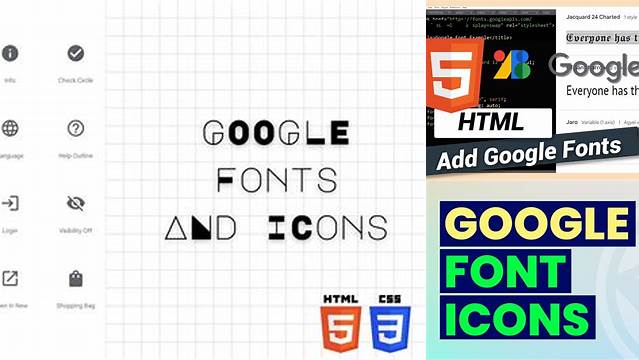
Use Google Fonts Icons: A Simple HTML Guide
Hey guys! Ever wanted to spice up your website with some cool icons but didn't know where to start? Well, you're in luck! Google Fonts Icons are here to save the day. They're super easy to use, totally free, and can make your website look amazing. In this guide, we're going to dive deep into how you can use Google Fonts Icons in your HTML projects. Let's get started!
What are Google Fonts Icons?
First things first, let's talk about what Google Fonts Icons actually are. Think of them as a huge library of scalable vector icons that you can easily add to your website. Unlike images, these icons won't lose quality when you resize them, making them perfect for responsive designs. Plus, because they're part of the Google Fonts family, they load quickly and seamlessly. You guys will find that Google Fonts Icons provide a vast collection of symbols and glyphs that can be used in various web development projects. These icons are designed to be scalable, meaning they maintain their quality regardless of the size at which they are displayed. This is a significant advantage over traditional image-based icons, which can become pixelated or blurry when scaled up. The scalable nature of Google Fonts Icons ensures that your website looks crisp and professional on all devices, from smartphones to high-resolution desktop monitors. Moreover, because these icons are delivered as a font, they are lightweight and load quickly, contributing to a faster website loading time. This is crucial for user experience and SEO, as websites with faster loading times tend to rank higher in search engine results. Google Fonts Icons also support a range of styling options through CSS, allowing developers to easily customize their appearance. You can change the color, size, and shadow of the icons, and even apply hover effects to create interactive elements. This level of customization ensures that the icons can be seamlessly integrated into the overall design of your website, enhancing its visual appeal and user engagement. The accessibility aspect of Google Fonts Icons is another key advantage. Since they are rendered as text, they can be easily styled using CSS properties such as font-size and color. This allows for easy adaptation to different screen sizes and color schemes, ensuring a consistent user experience across various devices and platforms. Additionally, screen readers can interpret these icons, making your website more accessible to users with disabilities. By using Google Fonts Icons, you are not only enhancing the visual appeal of your website but also improving its accessibility and performance. Overall, Google Fonts Icons are a fantastic resource for any web developer looking to add professional-quality icons to their projects without sacrificing performance or accessibility.
Why Use Google Fonts Icons?
Okay, so why should you bother using Google Fonts Icons? There are tons of reasons, but let's break down the main ones. First off, they're free! Who doesn't love free stuff? You don't have to worry about licensing fees or anything like that. Just grab the icons you need and go! Secondly, they're scalable. As we mentioned earlier, these icons look great at any size. You can make them tiny for a button or huge for a hero section – they'll always be crisp and clear. Plus, they're super easy to customize. You can change their color, size, and even add shadows with just a few lines of CSS. Using Google Fonts Icons offers several advantages over other methods of incorporating icons into a website. One of the primary benefits is their scalability. Unlike traditional image-based icons, which can become pixelated when resized, Google Fonts Icons are vector-based. This means they can be scaled up or down without any loss of quality, ensuring they look sharp and clear on all devices, from small smartphones to large desktop screens. This responsiveness is crucial for modern web design, where websites need to adapt to various screen sizes and resolutions. Another significant advantage of using Google Fonts Icons is their ease of customization. Because they are essentially text characters, you can style them using CSS properties such as color, font-size, and text-shadow. This allows for a high degree of flexibility in matching the icons to your website's design and branding. You can easily change the color of an icon to match your color scheme, increase its size to make it more prominent, or add a shadow to give it depth. This level of control makes it simple to create a cohesive and visually appealing user interface. Furthermore, Google Fonts Icons are incredibly lightweight, which contributes to faster website loading times. When you use image-based icons, each icon adds to the overall file size of your website, which can slow down loading times and negatively impact user experience and SEO. Google Fonts Icons, on the other hand, are delivered as a font file, which is typically much smaller than a collection of individual image files. This means your website will load faster, providing a better experience for your users and potentially improving your search engine rankings. In addition to performance benefits, Google Fonts Icons are also easy to implement. Google provides a simple and straightforward way to include these icons in your projects, typically involving adding a link to the Google Fonts stylesheet in your HTML file. Once the stylesheet is linked, you can use the icon names in your HTML markup, just like you would use text characters. This ease of use makes Google Fonts Icons accessible to developers of all skill levels. Overall, Google Fonts Icons offer a compelling solution for adding icons to your website. They are scalable, customizable, lightweight, and easy to use, making them an excellent choice for enhancing your website's visual appeal and user experience.
Step-by-Step Guide: How to Use Google Fonts Icons
Alright, let's get into the nitty-gritty. Here’s a step-by-step guide on how to use Google Fonts Icons in your HTML projects:
Step 1: Choose Your Icons
Head over to the Google Fonts Icons website. Here, you'll find a massive library of icons to choose from. You can search for specific icons or browse by category. Once you find an icon you like, click on it to see more details. The first step in using Google Fonts Icons is to select the icons you want to incorporate into your project. Google Fonts provides an extensive library of icons, covering a wide range of categories and styles. To begin, navigate to the Google Fonts Icons website, where you can browse through the available icons. You can use the search bar to find specific icons by keyword, or you can explore the icons by category. This makes it easy to discover the perfect icons for your website, whether you need symbols for navigation, social media, or other purposes. When browsing, take the time to review the different icon styles and variations available. Google Fonts Icons come in several styles, including filled, outlined, rounded, and sharp. Each style offers a different visual appearance, allowing you to choose the one that best matches your website's design aesthetic. Consider the overall tone and feel of your website when making your selection. For example, a modern, minimalist website might benefit from the clean lines of the outlined style, while a more playful design could use the rounded style. Once you have identified a set of icons that you like, it's a good idea to make a note of their names or add them to a collection within the Google Fonts interface. This will make it easier to reference them later when you are implementing them in your code. Google Fonts allows you to create collections of icons, which is a convenient way to organize your selections and ensure you don't lose track of the icons you intend to use. As you choose your icons, think about how they will contribute to the overall user experience of your website. Icons should be intuitive and easily recognizable, helping users navigate your site and understand its content. For example, a home icon typically represents the homepage, while an envelope icon usually indicates a contact or email link. Using standard icon conventions can enhance usability and make your website more user-friendly. In addition to their visual appeal, consider the accessibility of the icons you choose. Ensure that they are clear and distinguishable, even for users with visual impairments. Using icons in conjunction with text labels can further improve accessibility, as it provides an alternative way for users to understand the icon's meaning. By carefully selecting your icons, you can create a visually appealing and user-friendly website that effectively communicates its message. Overall, the icon selection process is a crucial step in leveraging Google Fonts Icons. By taking the time to explore the available options and consider the design and usability implications, you can choose icons that enhance your website's appearance and functionality.
Step 2: Include the Google Fonts Link in Your HTML
Step 3: Use the Icons in Your HTML
Okay, the fun part! Now you can start using the icons in your HTML. To display an icon, you'll use the <span> tag with the material-symbols-outlined class and the icon name. For example, if you want to use the "menu" icon, you'd use this code:
Just replace "menu" with the name of the icon you want to use. Boom! You've got an icon! With the Google Fonts stylesheet linked in your HTML, the next step is to actually implement the icons within your content. This involves using HTML tags and classes to reference the icons and display them on your webpage. Google Fonts Icons are designed to be used like text characters, which means you can easily incorporate them into your HTML markup using elements like <span> or <i>. The most common method for displaying icons is by using the <span> tag, as it is a generic inline container that doesn't inherently carry any semantic meaning. This makes it ideal for adding icons without disrupting the flow of your text or the structure of your document. To display an icon, you will typically use the <span> tag along with a specific class that corresponds to the icon you want to show. The class names are based on the names of the icons in the Google Fonts library, and they follow a specific naming convention. For the Material Icons set, which is the most commonly used set, the class names typically start with material-symbols-outlined, followed by the name of the icon. For example, if you want to use the "menu" icon, you would use the following HTML code:
In this code, the <span> tag is used to create an inline element, and the class="material-symbols-outlined" attribute assigns the appropriate class to the element. The text content of the <span> tag, in this case, "menu", specifies the icon that should be displayed. The Google Fonts stylesheet will recognize this class and replace the text with the corresponding icon glyph. It is crucial to use the correct class name for the icon you want to display. You can find the correct class name for each icon on the Google Fonts Icons website, where each icon is listed with its name and associated class. Simply copy the class name from the website and paste it into your HTML code. Once you have added the <span> tag with the correct class name, the icon will be displayed on your webpage. You can use this method to add icons to various parts of your website, such as buttons, navigation menus, and content sections. The icons will be rendered as vector graphics, ensuring they look sharp and clear at any size. By using Google Fonts Icons in your HTML, you can easily enhance the visual appeal and usability of your website. The simple and straightforward implementation process makes it accessible to developers of all skill levels, allowing you to add professional-quality icons to your projects with ease.
And there you have it! Using Google Fonts Icons in HTML is super easy once you get the hang of it. They're a fantastic way to add some visual flair to your website without sacrificing performance. So go ahead, give it a try, and make your website shine! You guys will love how simple and effective this is. In conclusion, Google Fonts Icons offer a versatile and efficient way to incorporate icons into your web projects. They provide numerous advantages, including scalability, ease of customization, and lightweight performance. By following the steps outlined in this guide, you can seamlessly integrate Google Fonts Icons into your HTML, enhancing the visual appeal and user experience of your website. Remember to choose your icons carefully, include the Google Fonts link correctly, use the appropriate HTML markup, and style your icons with CSS to match your website's design. Additionally, be mindful of best practices, such as using icons consistently and sparingly, and optimizing their size for performance. By addressing common issues and troubleshooting effectively, you can ensure that your Google Fonts Icons display correctly and enhance your website's overall design. The ability to use scalable vector graphics without sacrificing performance makes Google Fonts Icons an excellent choice for modern web development. Their ease of use and extensive library of icons allow you to quickly and easily add professional-quality visuals to your website, improving its appearance and functionality. Whether you are building a simple personal website or a complex web application, Google Fonts Icons can help you create a polished and engaging user interface. The scalability of these icons ensures that they look crisp and clear on all devices, while their customizable nature allows you to tailor them to your specific design needs. By leveraging Google Fonts Icons, you can create websites that are not only visually appealing but also user-friendly and accessible. The consistent and strategic use of icons can improve navigation, highlight important information, and enhance the overall user experience. Moreover, their lightweight nature helps to maintain fast loading times, which is crucial for user engagement and SEO. In summary, mastering the use of Google Fonts Icons is a valuable skill for any web developer. By following best practices and addressing common issues, you can effectively utilize these icons to create visually stunning and high-performing websites. Embrace the power of Google Fonts Icons and elevate your web development projects to the next level.